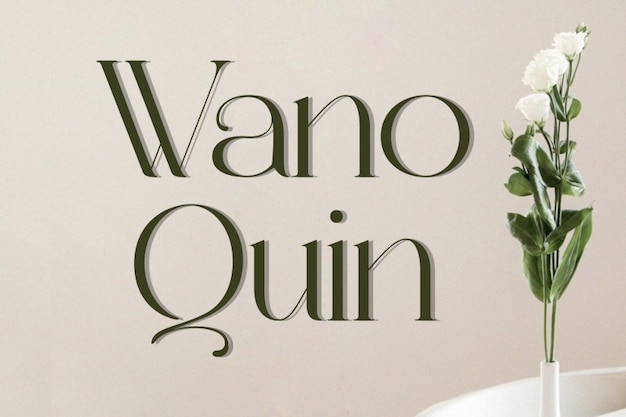
Wano Quin Font
Wano Quin is a font that flawlessly encapsulates the essence of elegance with a touch of stylish aesthetics. Its characters are meticulously designed, exuding sophistication and a contemporary charm that adds a touch of refined beauty to your text. Whether you're working on branding, editorial layouts, or any design project that demands a hint of artistic flair, Wano Quin gracefully infuses your text with a sense of modern grace. This font captures the essence of modern design, offering an elegant and stylish look that's perfect for those who appreciate the power of refined and timeless typography.